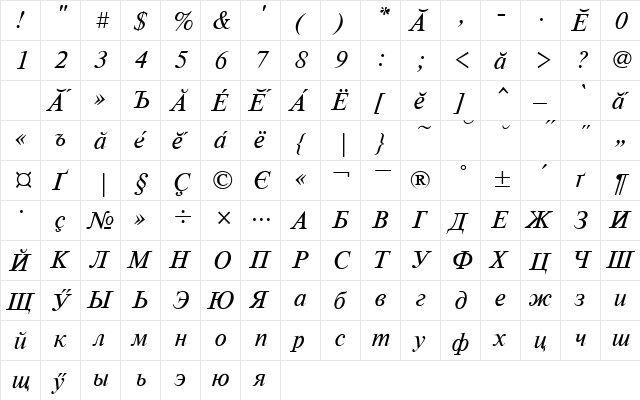
TimesET Chuvash Italic
Design Context for TimesET Chuvash Typeface
TimesET Chuvash takes a measured approach to typography — its balanced proportions and neutral character make it a reliable workhorse for both digital and print work. The dynamic lean of this cut emphasises speed and emphasis in any layout.
Pro Tip: Try TimesET Chuvash for annotation and caption copy alongside an upright companion — the contrast in angle creates a dynamic but ordered typographic system.